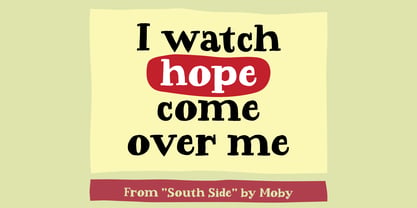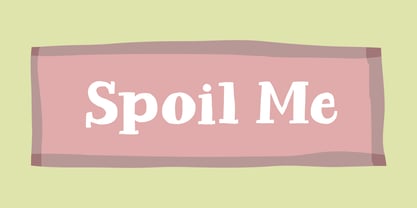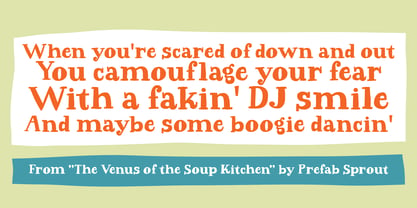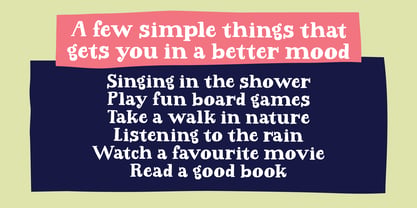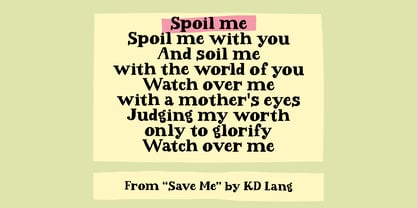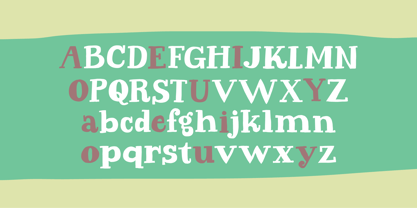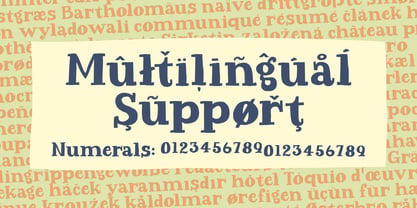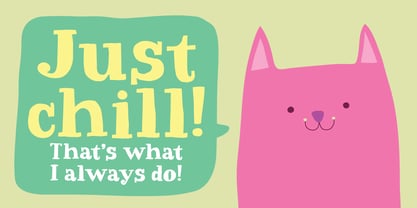
Spoil Me
by Bogstav
The Spoil Me Font Family was designed by Jakob Fischer and published by Bogstav. Spoil Me contains 2 styles and family package options. More about this family
Say hello to my chunky, uneven and eccentric seriffed font. Uneven strokes and slightly strange widths and breadths along with unpredictable serifs - most of them are just as the classic rules dictates, others may be missing or in a wrong place. The sum of all this is this charming and cheerful expressive font - ideal for posters, quotes or creative messages where a handmade look is needed.
Designers: Jakob Fischer
Foundry: Bogstav